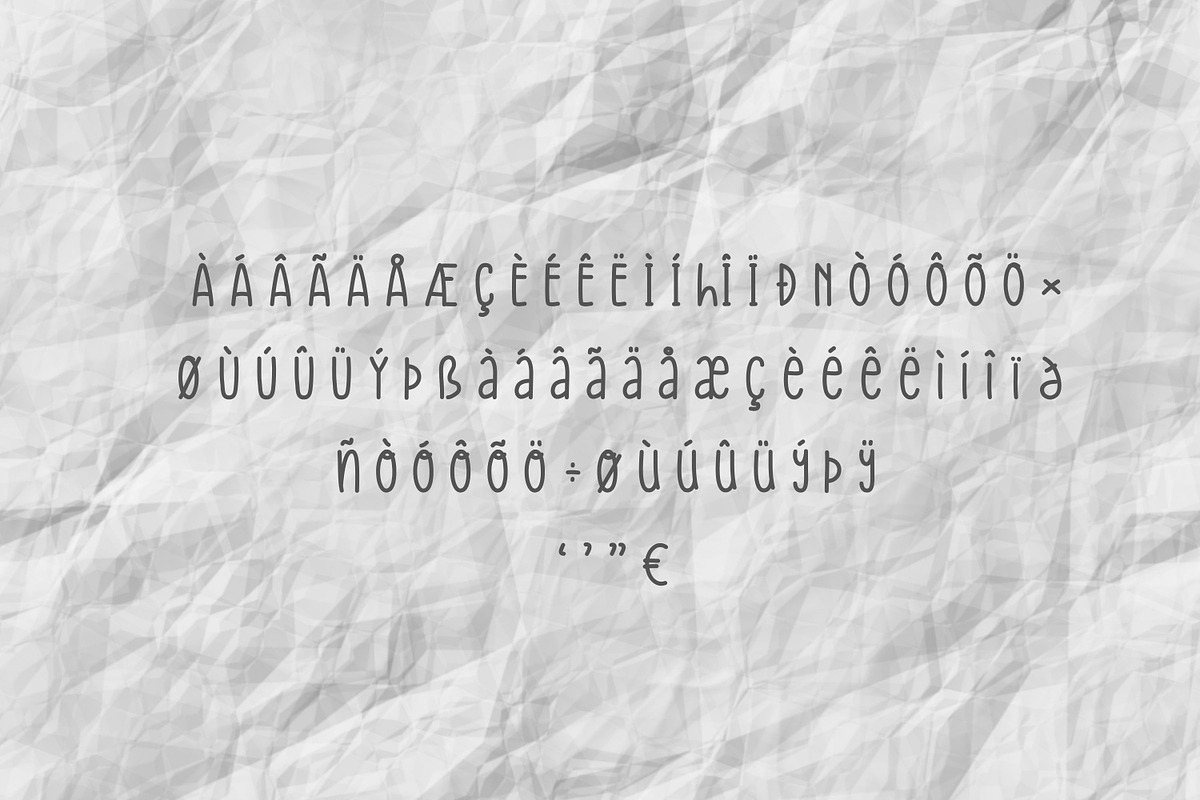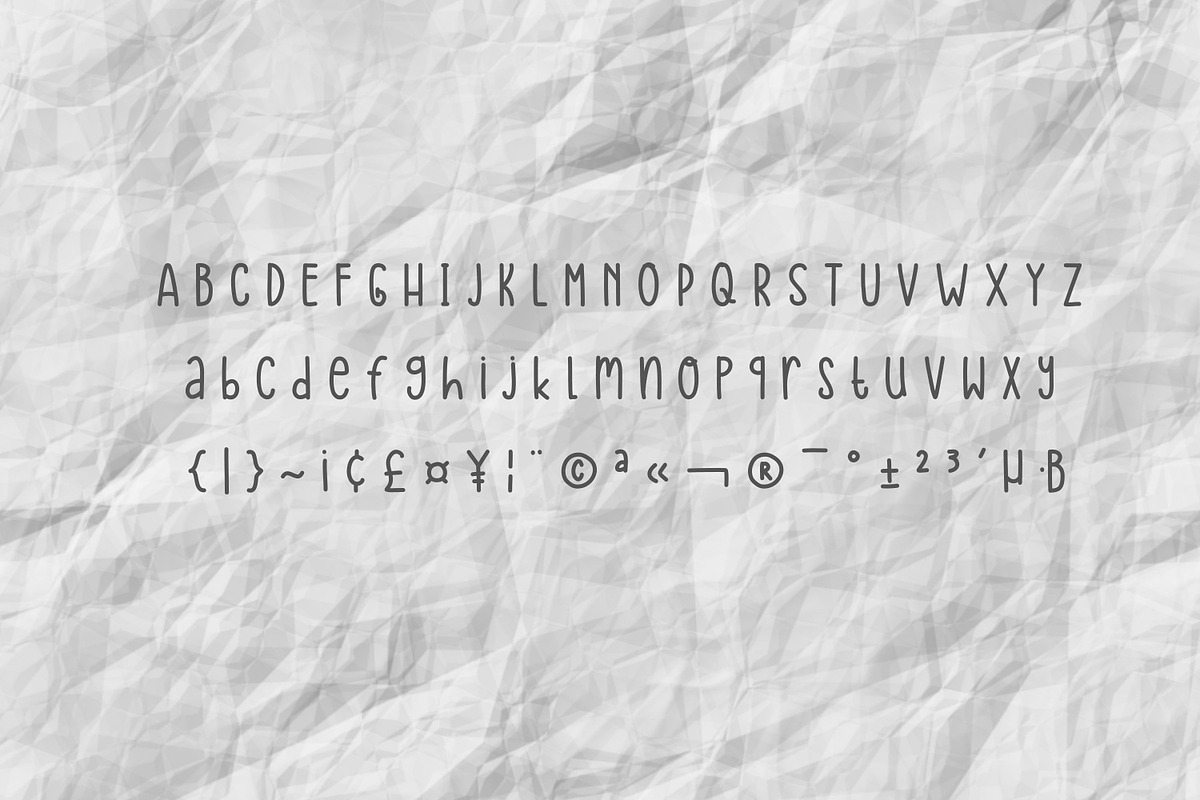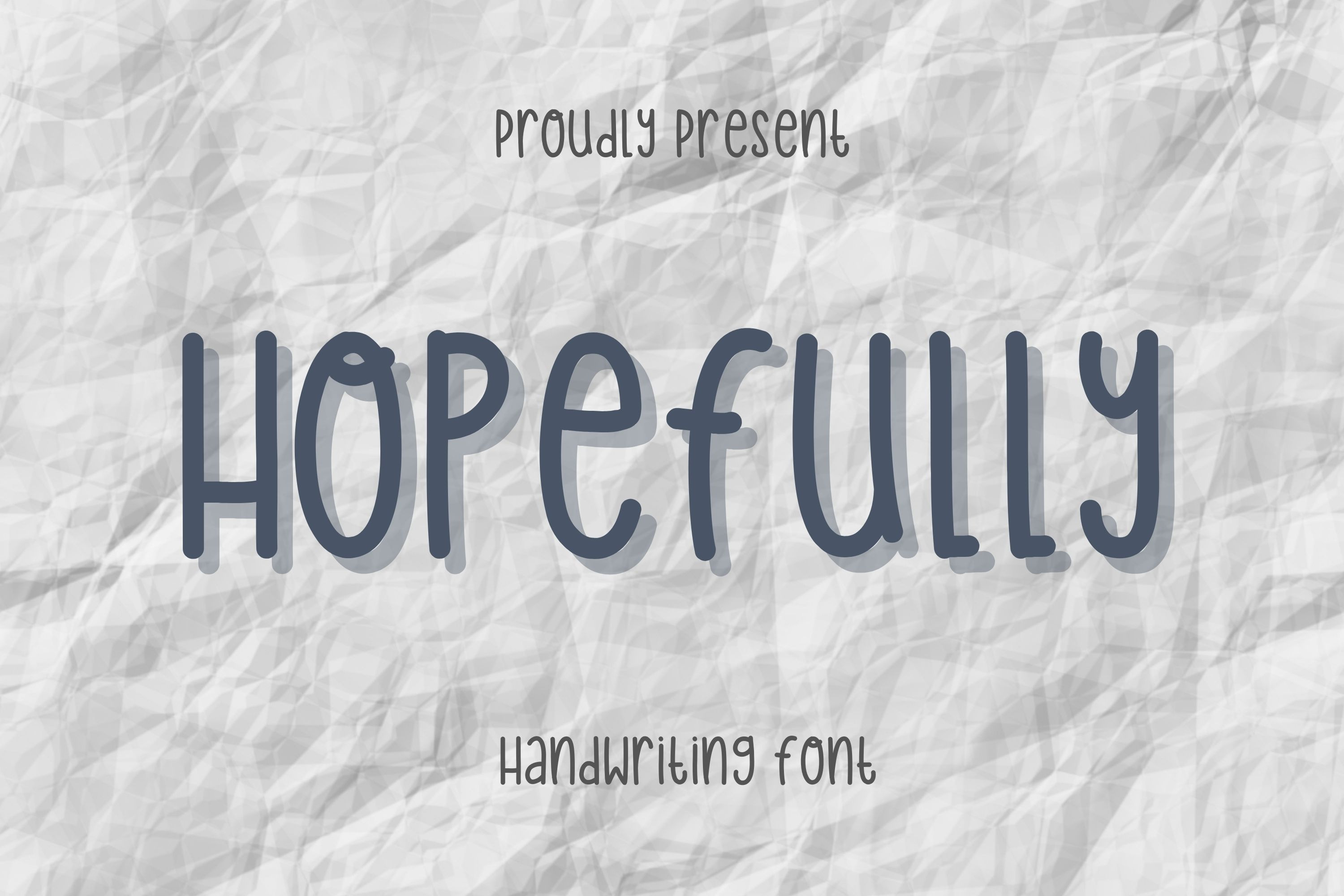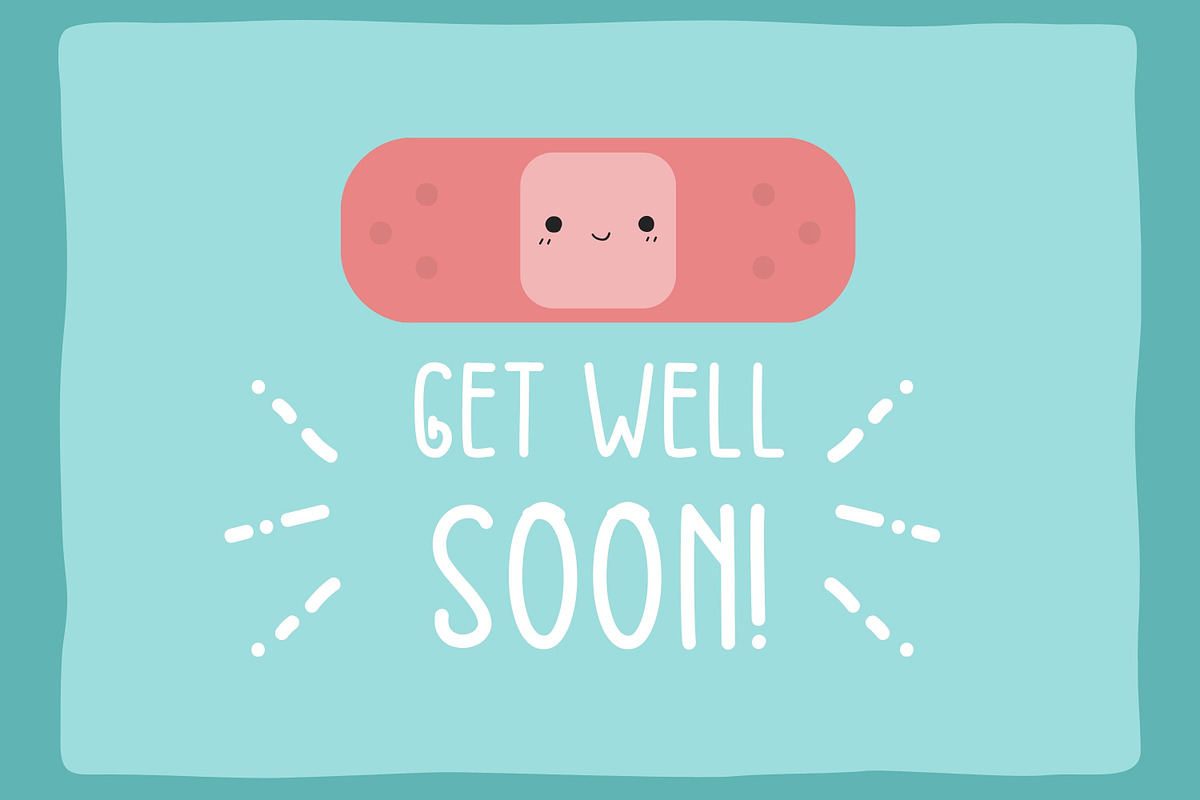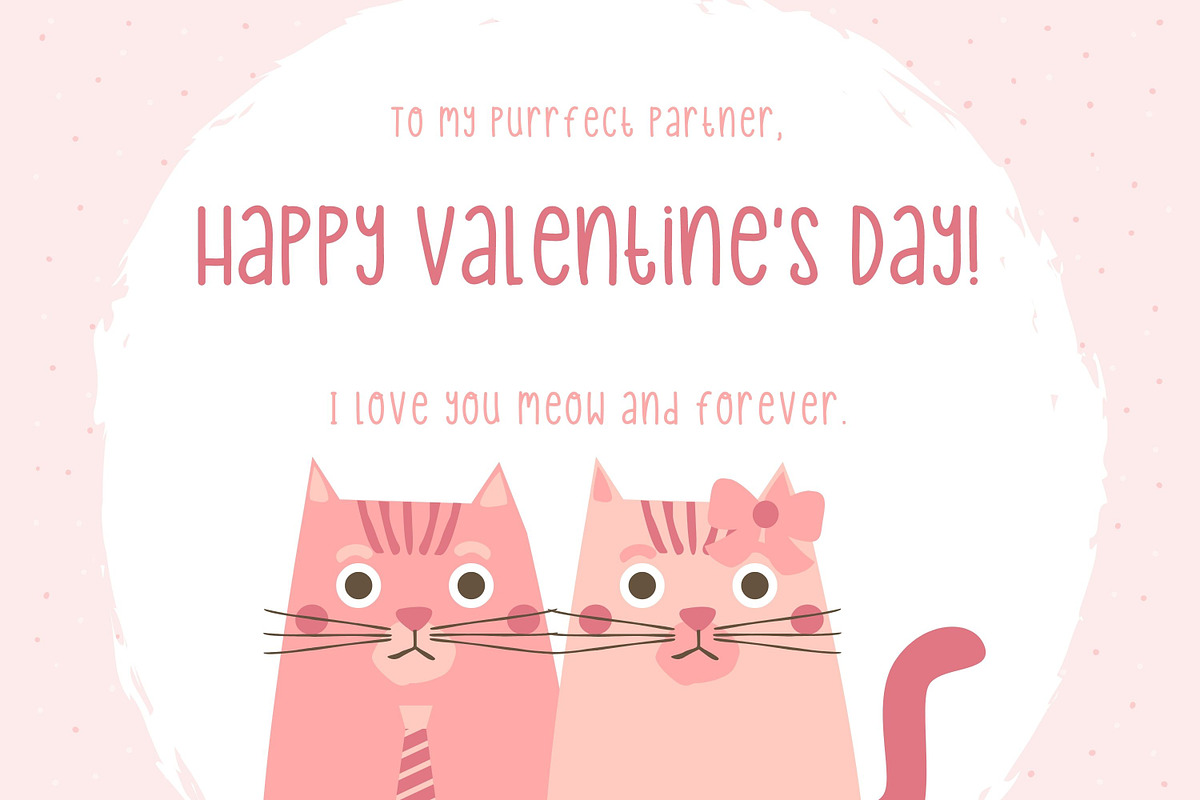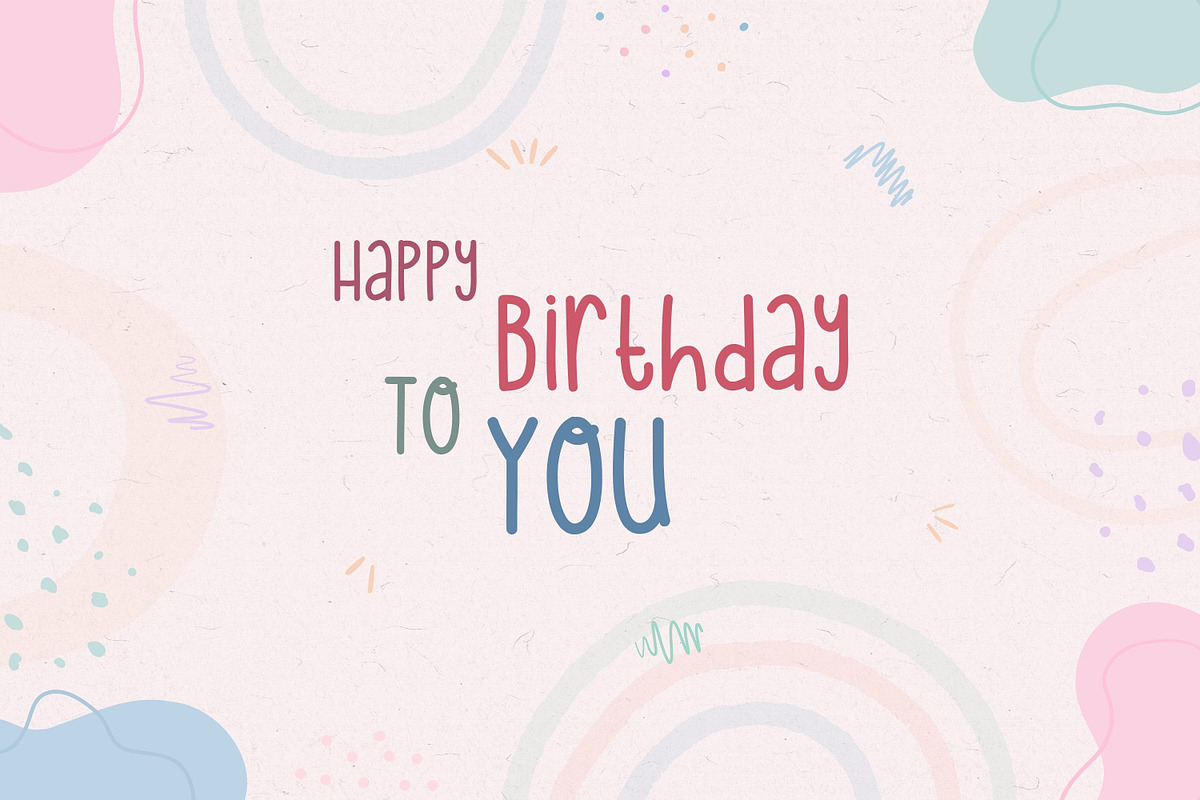
Hopefully Font
Hopefully is a simple and dainty handwritten font. Its natural and unique style makes it incredibly fitting to a large pool of designs. Use this font for your designs and explore its endless possibilities.